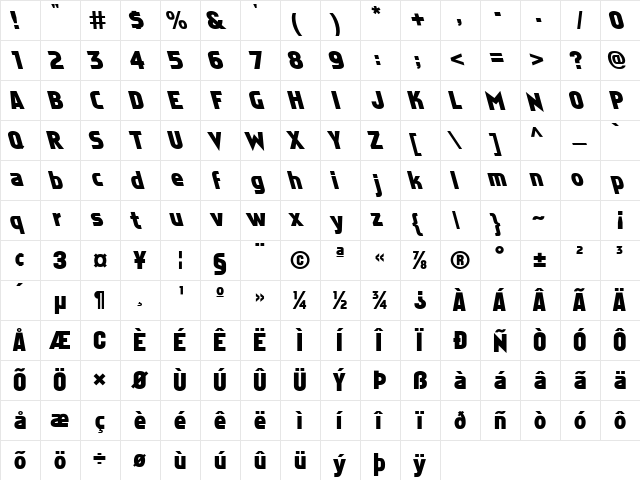
Faktos-LeftyCasual Normal
Design Context for Faktos-LeftyCasual Typeface
Faktos-LeftyCasual is a composed and adaptable typeface that performs quietly and consistently across a wide range of design contexts.